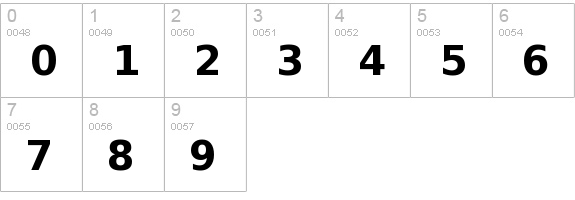
ae_Ouhod Bold Font Details
ae_Ouhod Bold is a strong, high-contrast variant in the ae_Ouhod typeface family \xE2\x80\x94 well suited to headlines, attention-grabbing titles, and strong calls-to-action.
ae_Ouhod Bold is a striking and eye-catching font that exudes confidence and modernity. With its bold and strong appearance, this font is perfect for making a statement in your designs. The sharp lines and distinct curves of ae_Ouhod Bold give it a unique and dynamic look that will capture the attention of your audience. What makes ae_Ouhod Bold even more appealing is that it is available for free download at FontsMarket.com. This means you can easily access this stylish font and use it in your projects without any cost. Whether you are working on a poster, logo, website, or any other design project, ae_Ouhod Bold will add a touch of sophistication and flair. Download ae_Ouhod Bold today and elevate your designs with this impressive and versatile font.